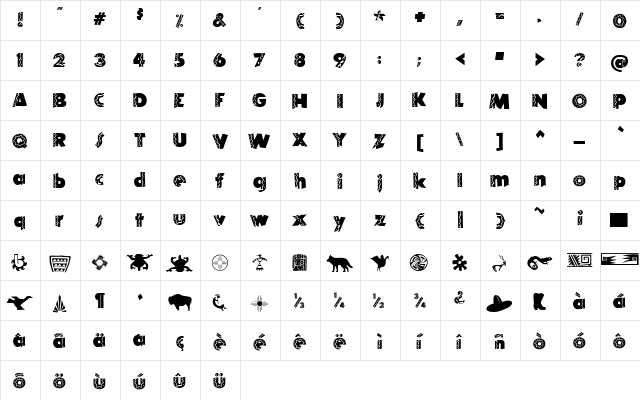
El Rio Lobo Normal
Design Context for El Rio Lobo Typeface
El Rio Lobo is a composed and adaptable typeface that performs quietly and consistently across a wide range of design contexts.